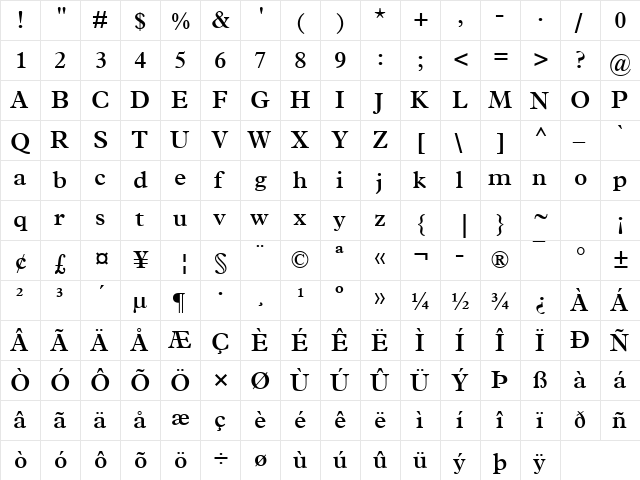
Plantin MT Semi Bold Regular Font Preview
Plantin MT Semi Bold Regular
Plantin MT Semi Bold Regular Font Details
| Foundry | Agfa Monotype Corporation |
Design Context for Plantin MT Semi Bold Typeface
Plantin MT Semi Bold offers clean, dependable letterforms without strong stylistic allegiance, making it a practical choice for designers who need flexibility. The heavy weight commands attention and anchors typographic hierarchies.